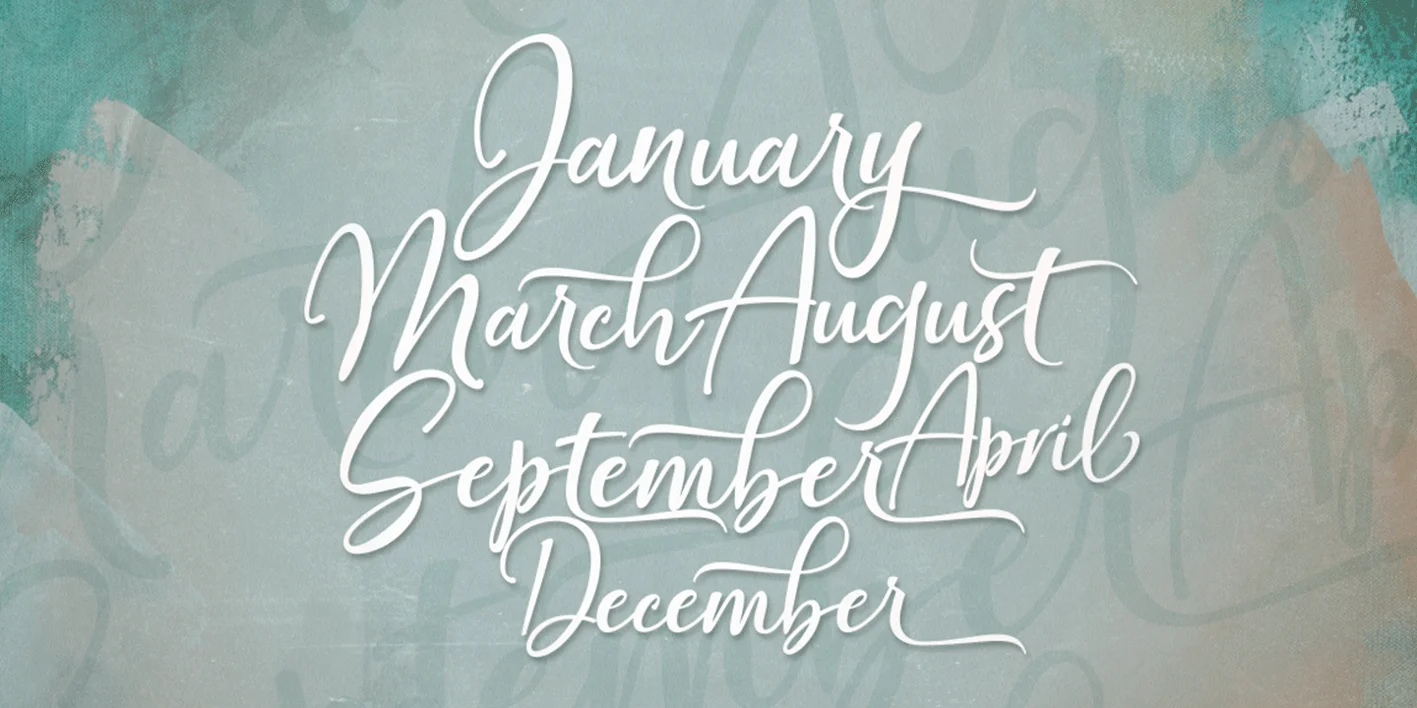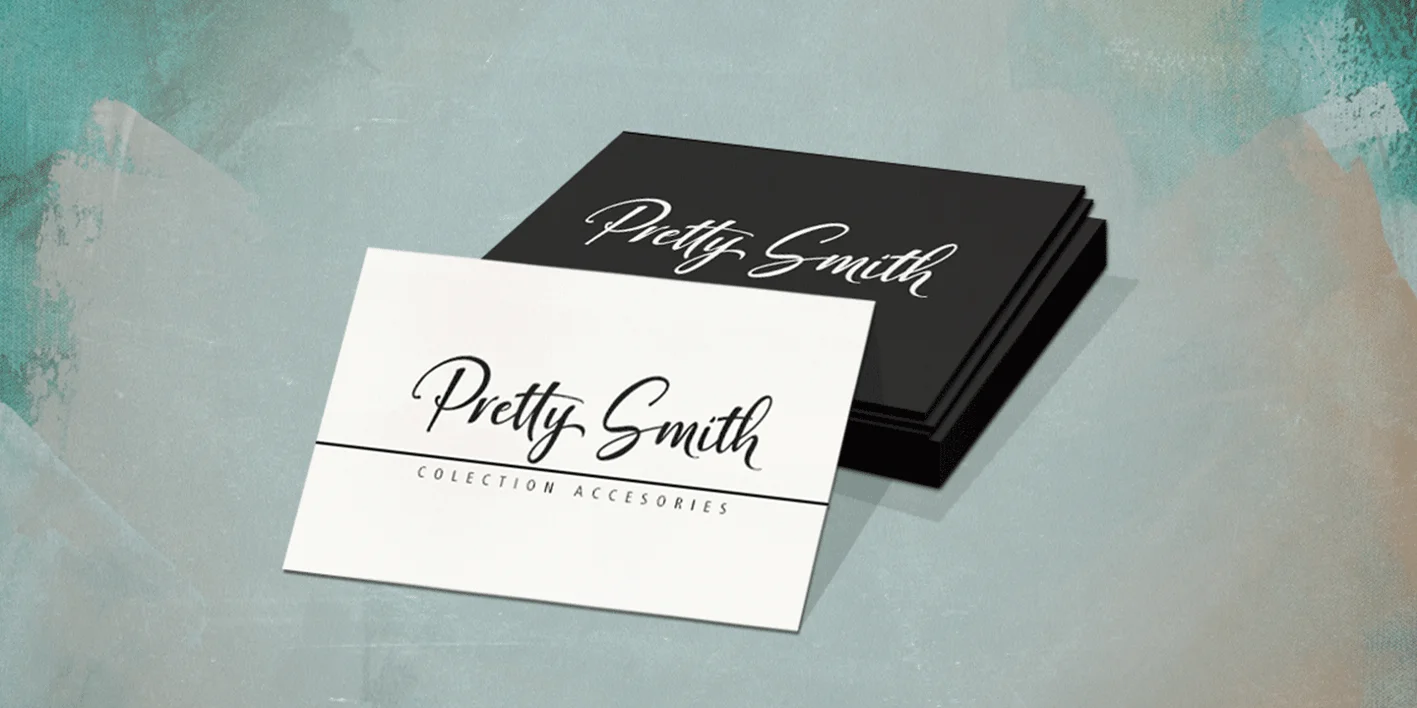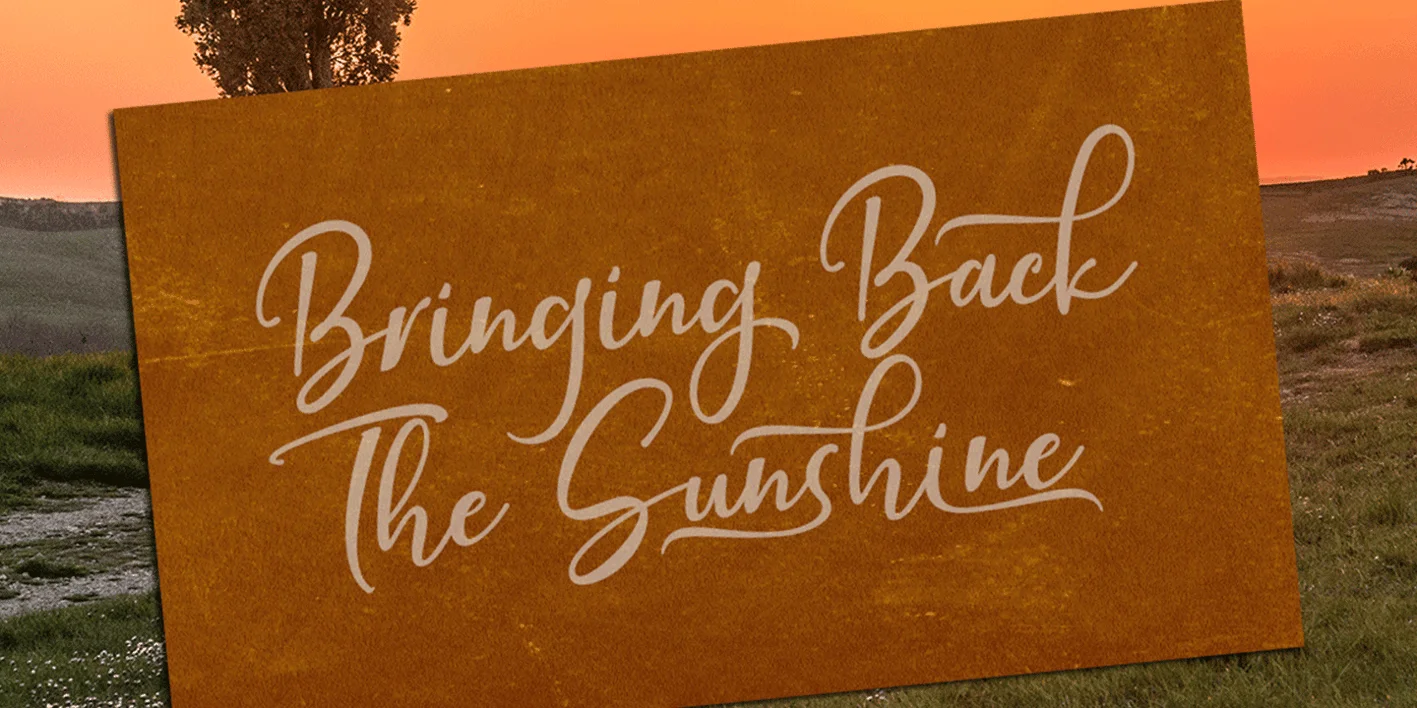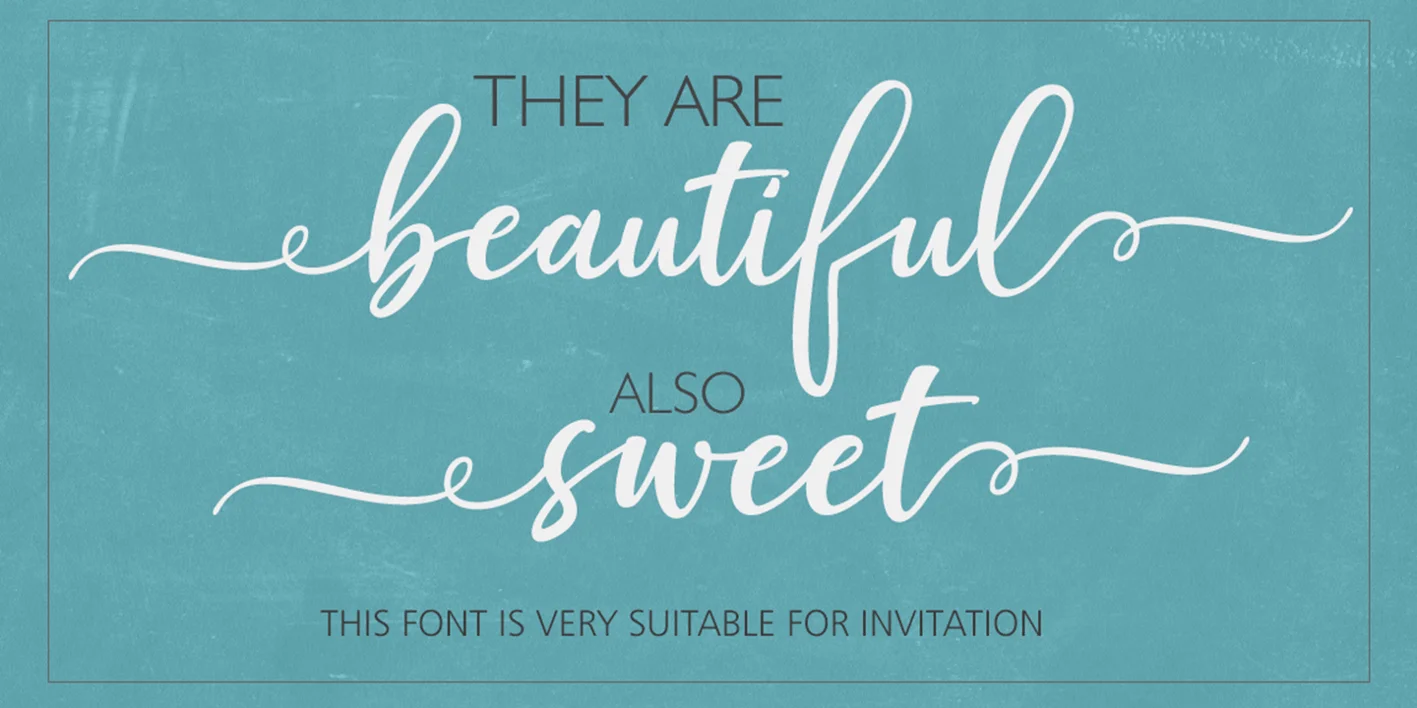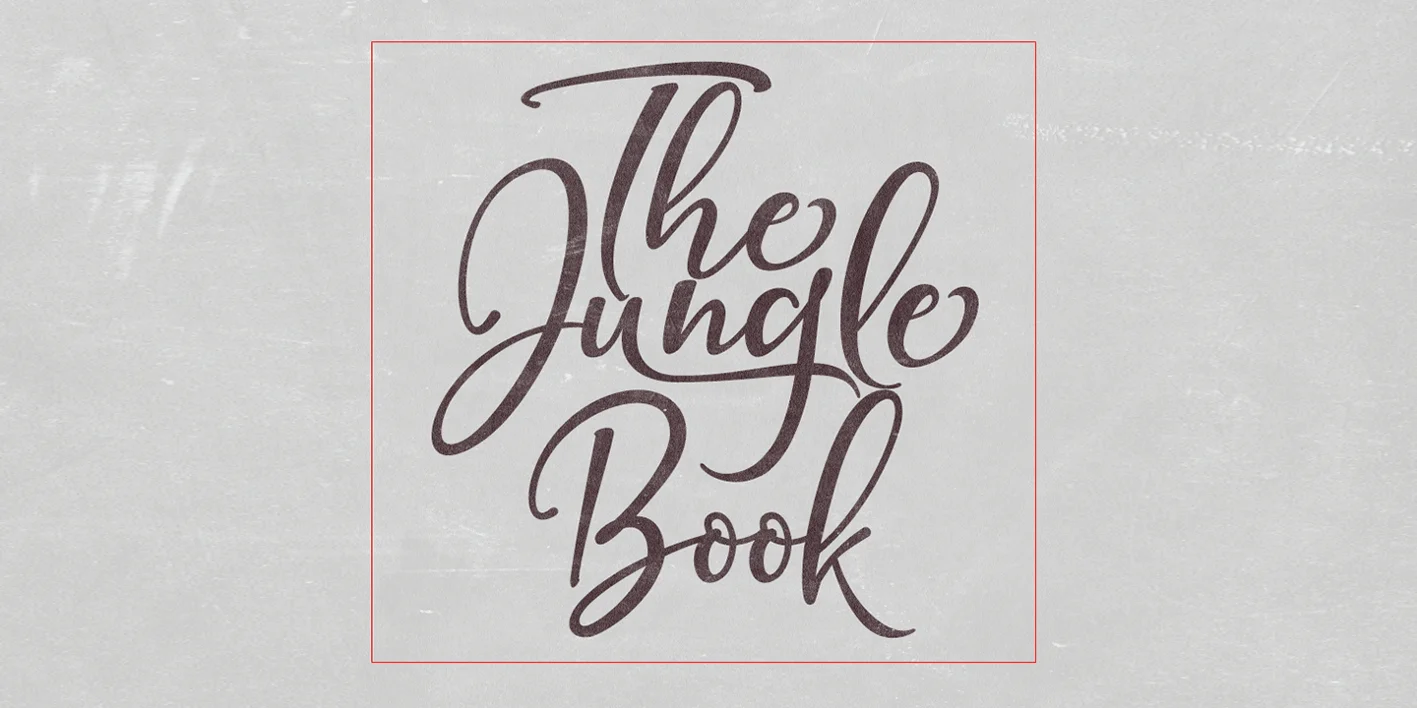
Just Beauty Font
A good typeface communicates tone before a single word is read. Just Beauty achieves this through refined proportions and careful stroke modulation. The typeface brings an elegant, calligraphic sensibility to a broad range of creative disciplines, with a confident voice that adapts to diverse briefs that holds up whether the work is print-first or screen-first.
In practice, Just Beauty proves particularly effective for logo design, bridal materials, fashion editorials, environmental graphics, feminine branding. Designers reaching for it find that the type decisions feel resolved rather than laboured — a useful quality when client timelines are tight.
The range of applications extends to fragrance labels, greeting cards, event signage, editorial layouts. That breadth is deliberate: the proportions and spacing were stress-tested across a wide range of mock briefs before the typeface was finalised.
The letterforms draw from classical calligraphic tradition, with carefully modulated thick-to-thin stroke contrast that mimics the pressure of a pointed nib. Connecting strokes have been optically adjusted so words flow naturally without awkward gaps between characters.
Just Beauty sits comfortably alongside both classic and contemporary typefaces in multi-font hierarchies. It takes direction rather than competing for attention — a quality that experienced designers know is harder to find than it appears.
Brand strategists building visual languages find Just Beauty a reliable choice for projects that demand both personality and restraint. The design avoids the self-conscious quirkiness that dates quickly, settling instead for considered distinctiveness that holds up over time.